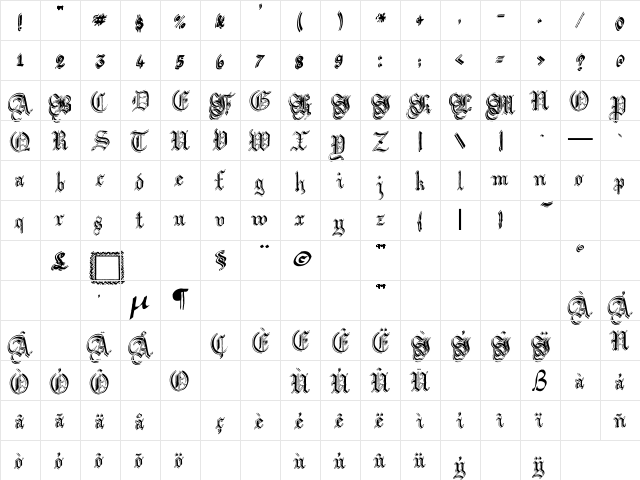
Argor Flahm Scaqh Regular
Design Context for Argor Flahm Scaqh
Argor Flahm Scaqh is a composed and adaptable typeface that performs quietly and consistently across a wide range of design contexts.